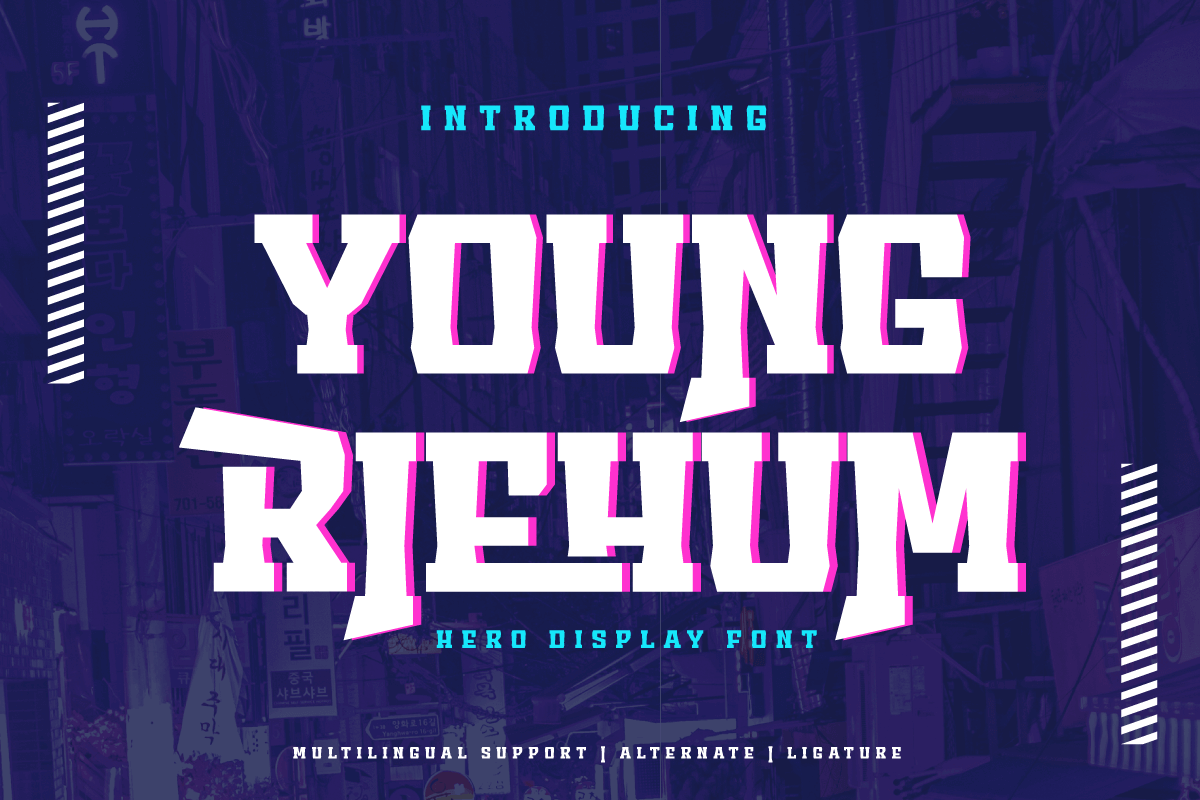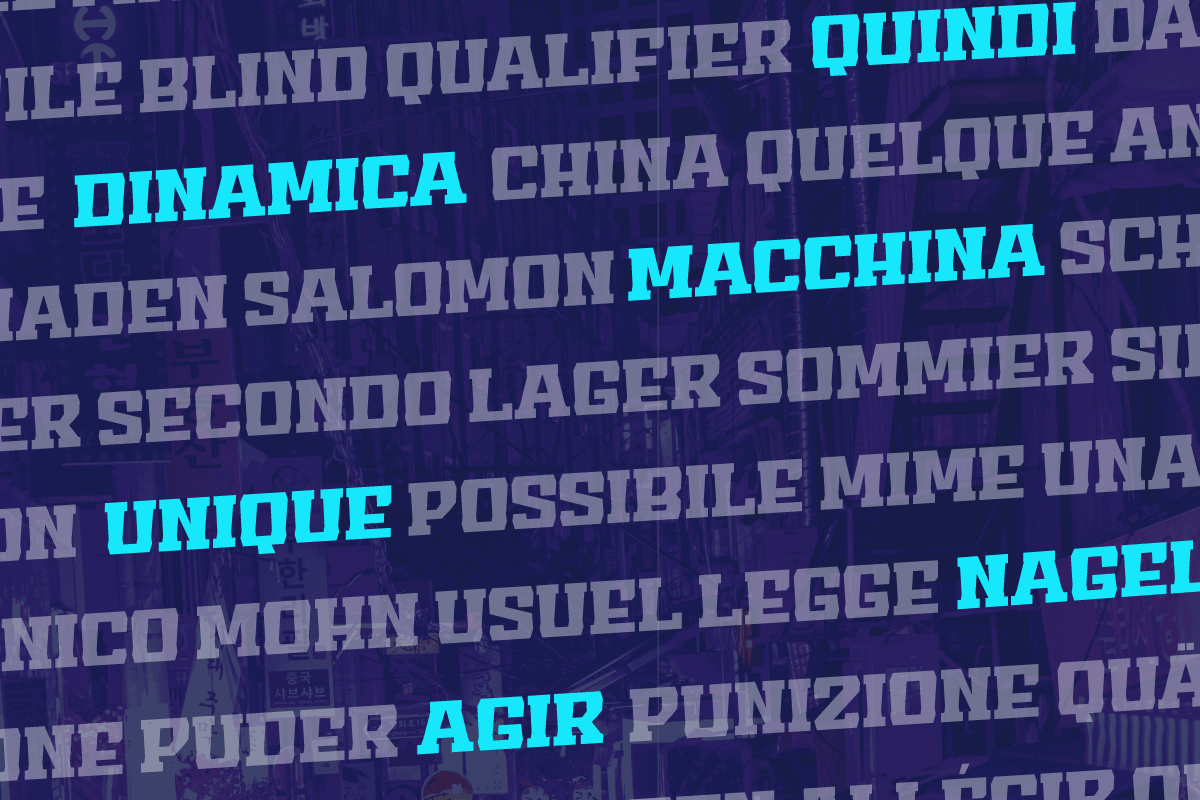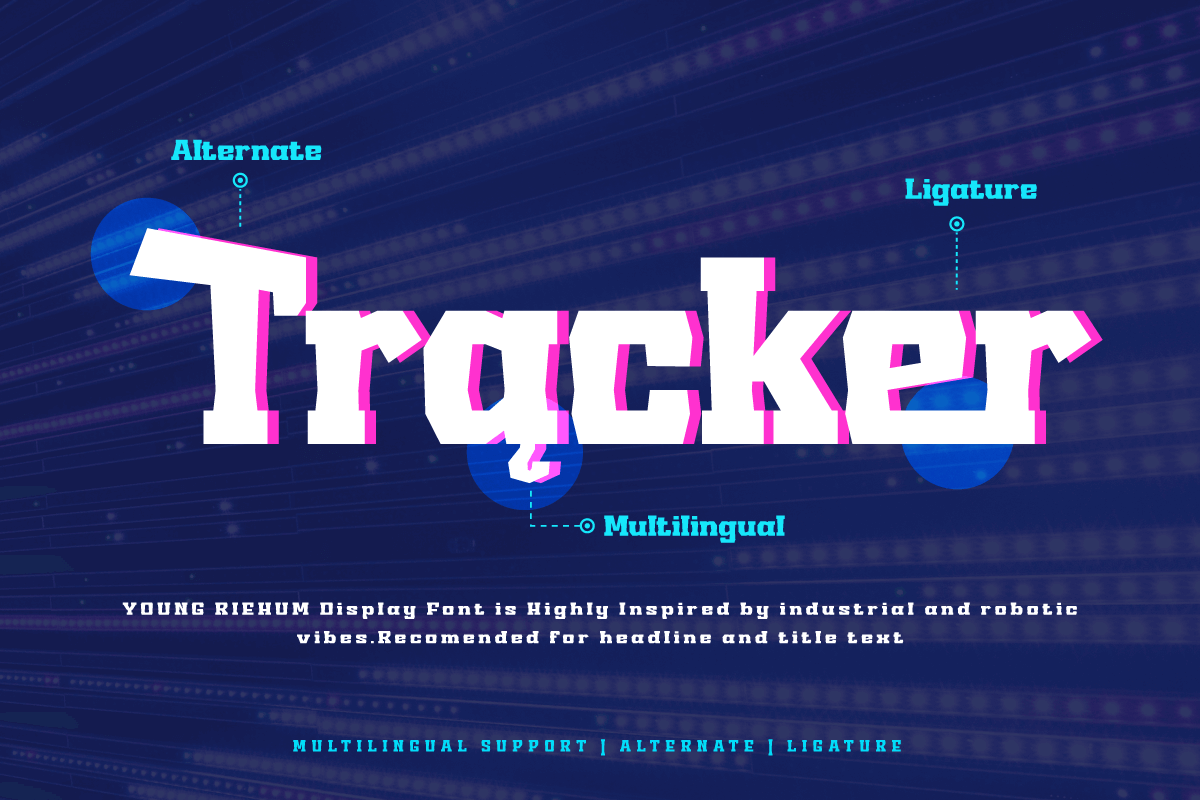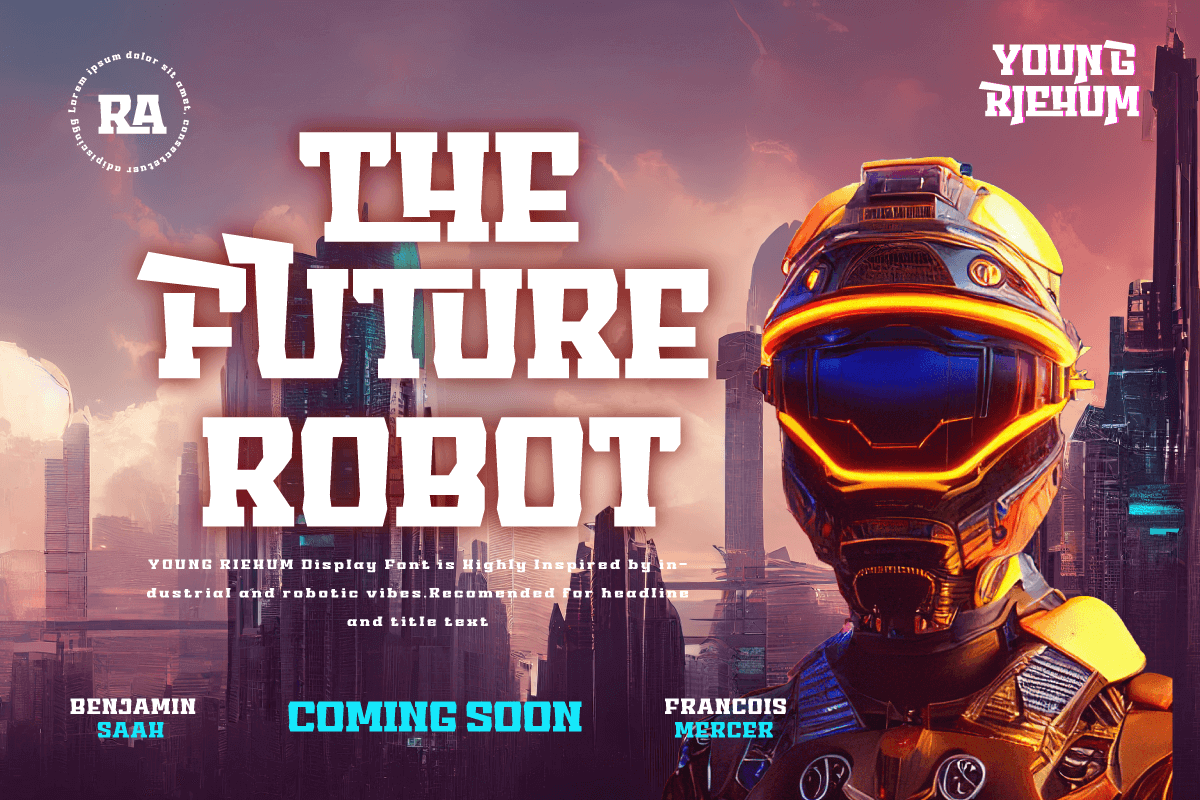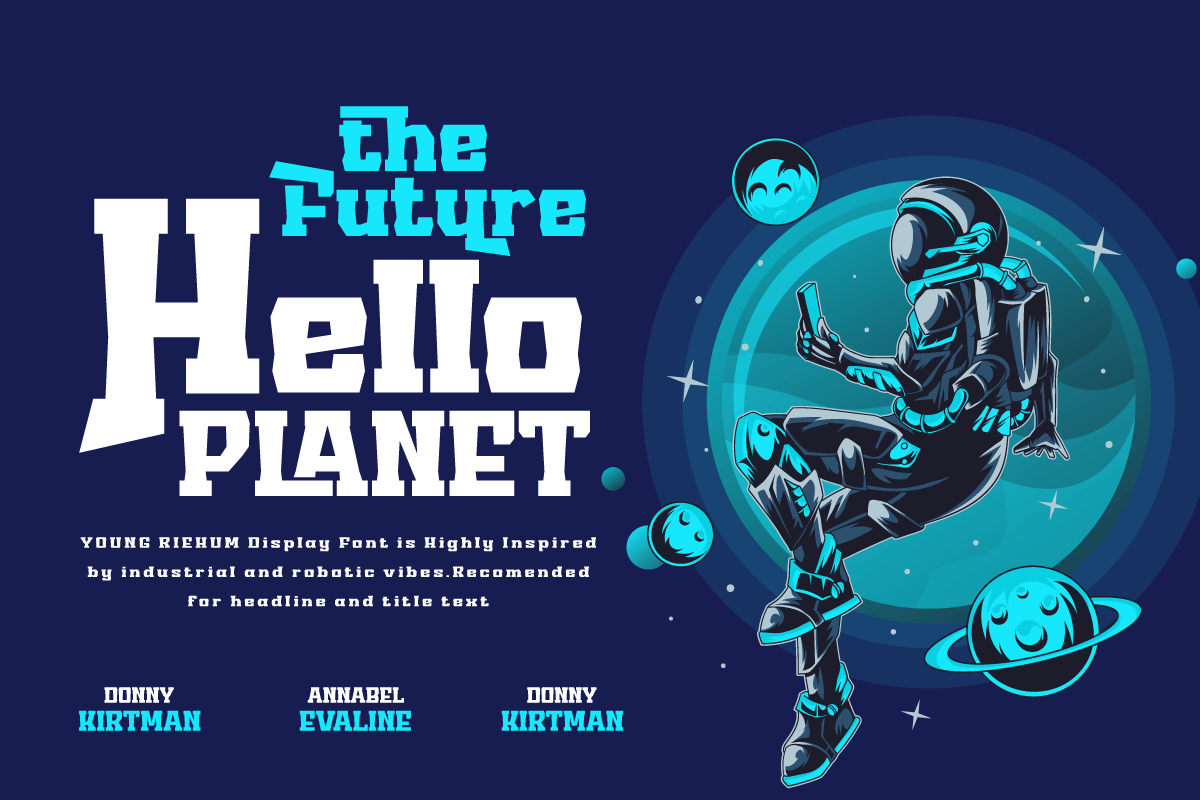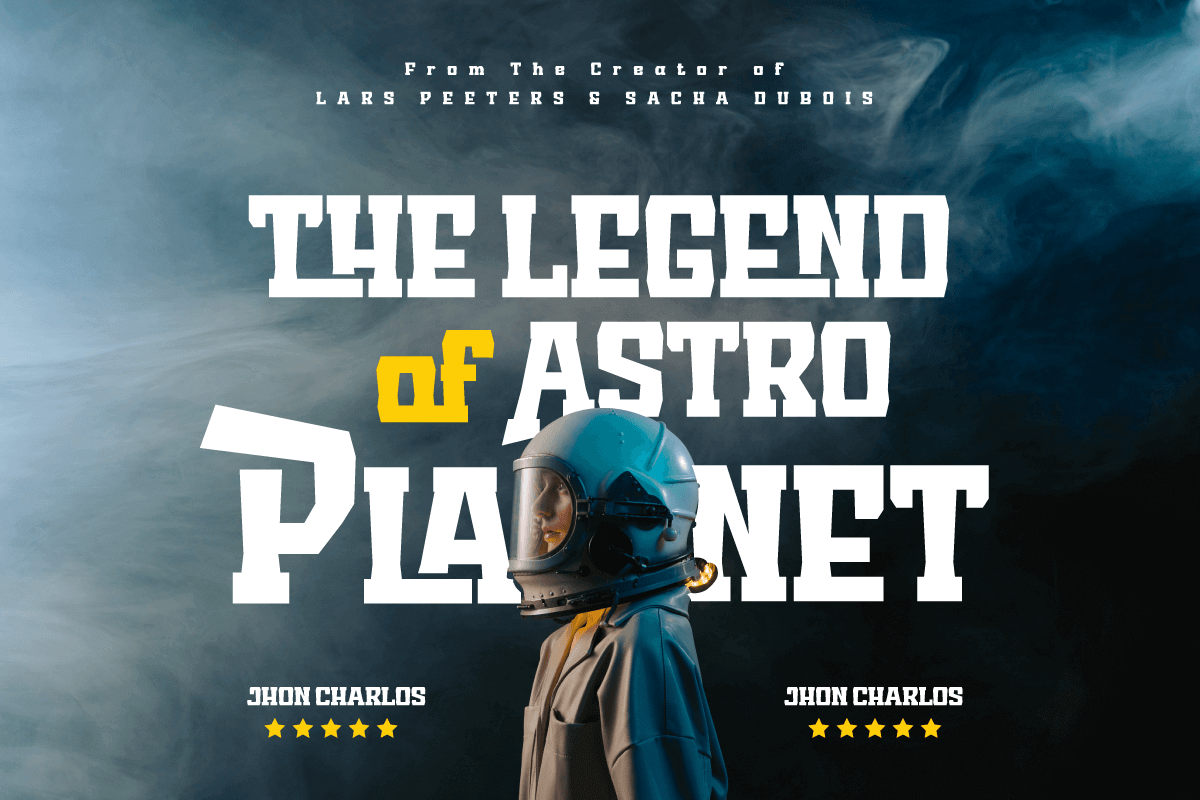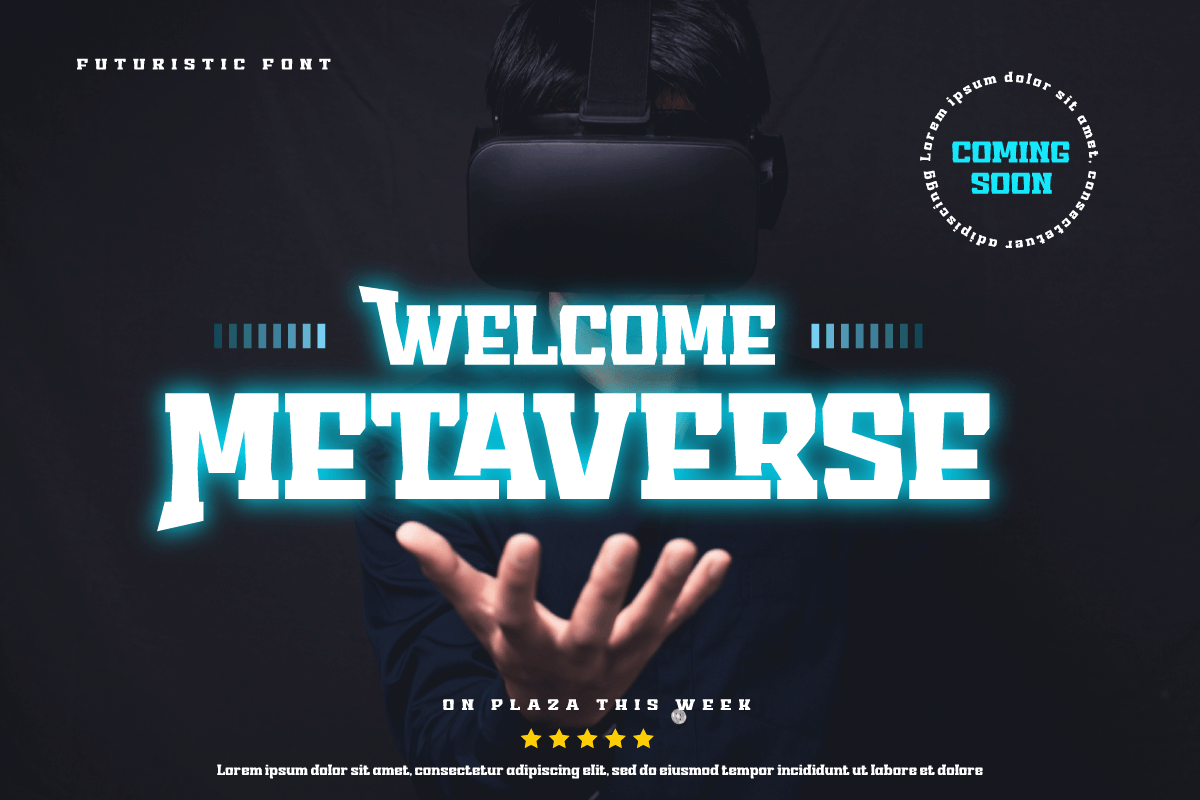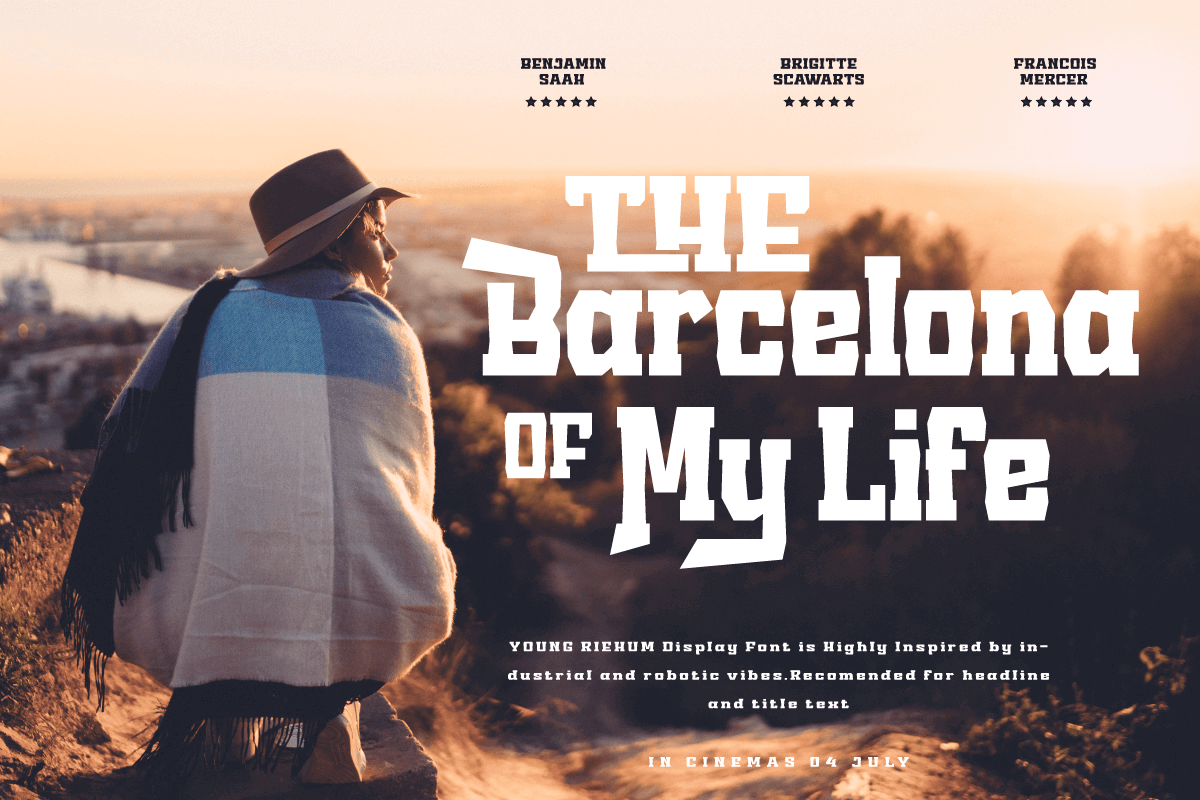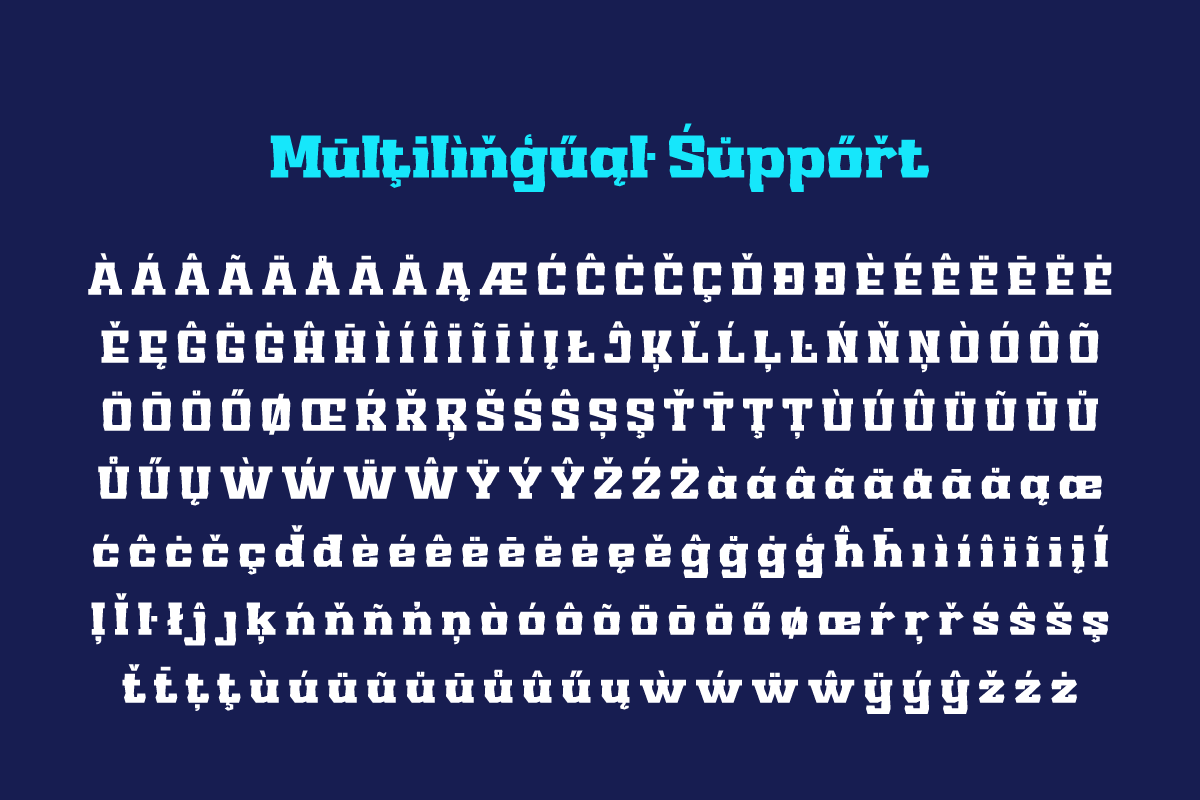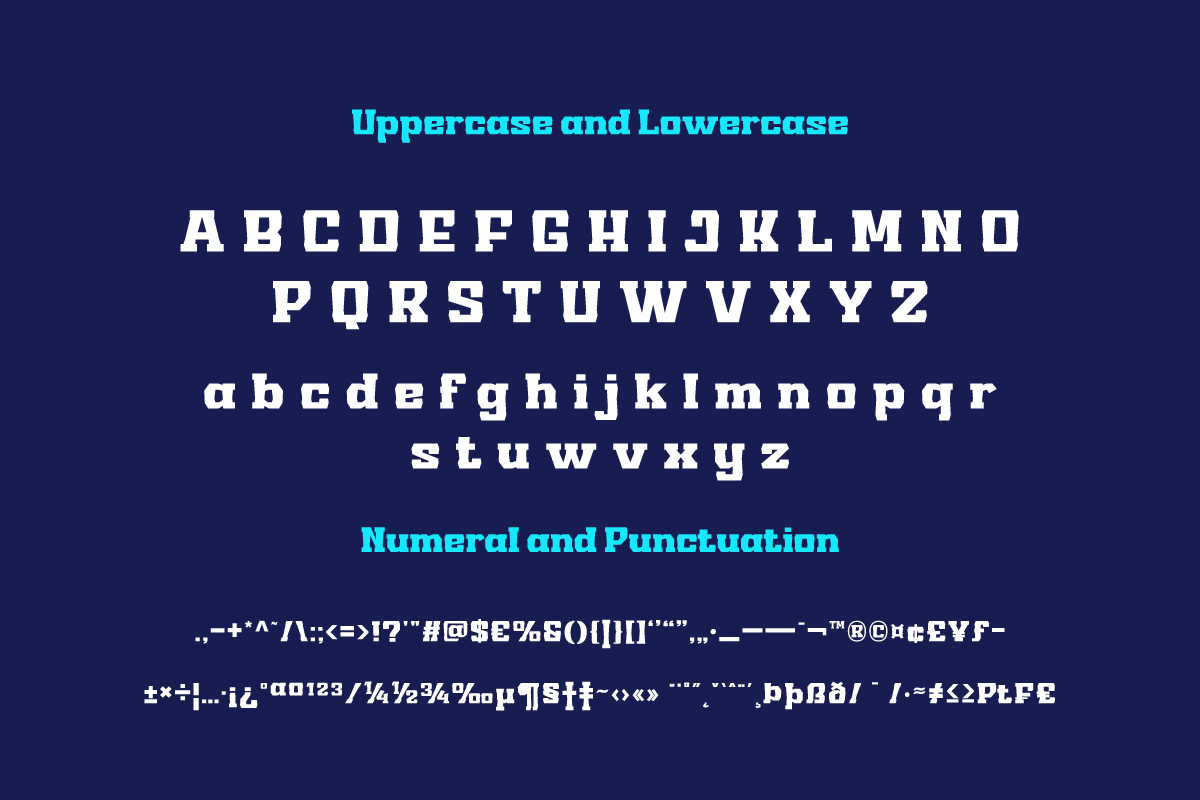
5. Young Riehum | Display Hero Font
Young Riehum | Display Hero Font
Regards! Say hello to Young Riehum, a superhero-style display font that will bring strength and tension to your projects. If you’re looking for a strong, bold, and bold font, Young Riehum is the perfect choice for creating an electrifying look in the worlds of film, gaming, and design. With a striking presence, Young Riehum grabs attention instantly and delivers an unforgettable message to your audience. Each letter exudes electrifying energy, giving your projects a new dimension and creating an extraordinary experience.
In addition to extraordinary styles, Young Riehum is also equipped with features that enrich your creativity. With the available ligatures and alternative characters, you can explore a variety of unique and interesting typography combinations. Apart from that, this font also supports multiple languages, allowing you to reach an international audience with a strong and bold message.
Join the forces of Young Riehum and let your every project be an epic adventure. With its stunning superhero style and special features, this font will provide unforgettable strength and tension. Don’t miss the opportunity to own Young Riehum and create extraordinary works that inspire and amaze your audience.